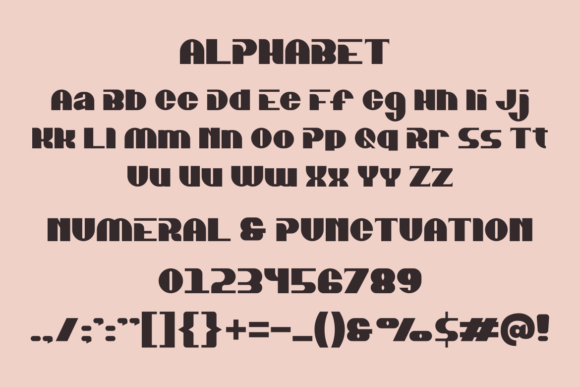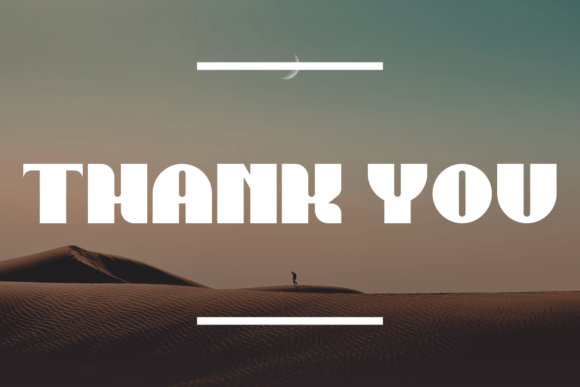
Introduction to Hesitant Font
Hesitant is a cool and modern display font.
Whimsical and a bit quirky, this font will brighten up each of your designs Add it confidently to your projects, and you will love the results.
Key Features of Hesitant Font
Why Choose Hesitant Font?
Hesitant Font offers exceptional quality and versatility, making it a valuable addition to your design toolkit. Whether you’re creating for personal projects or commercial use, Hesitant Font delivers professional results.